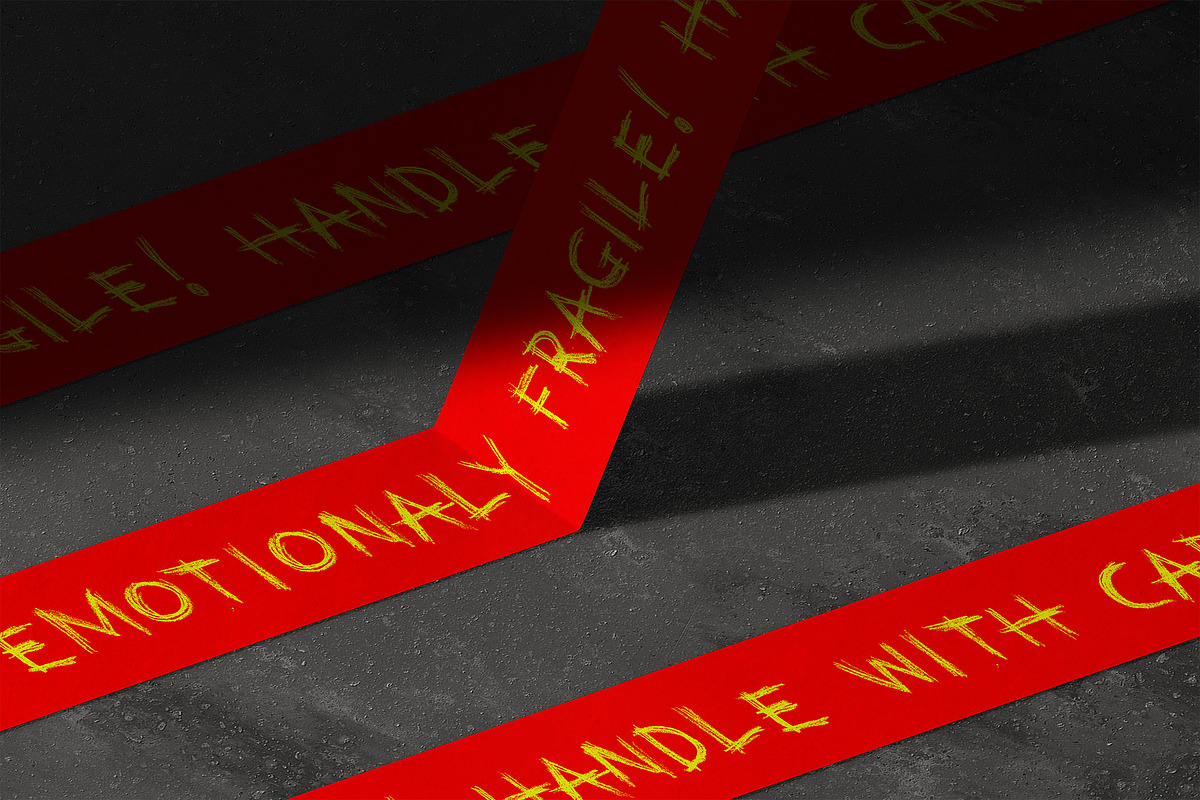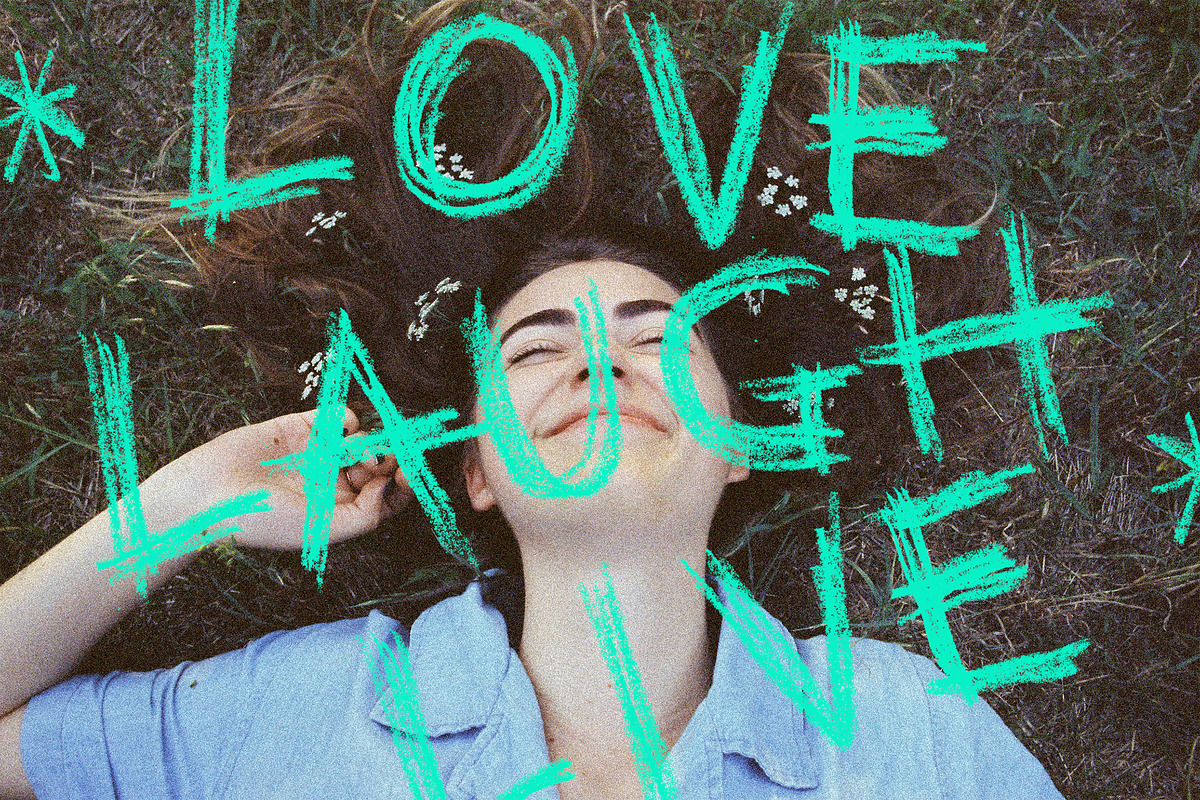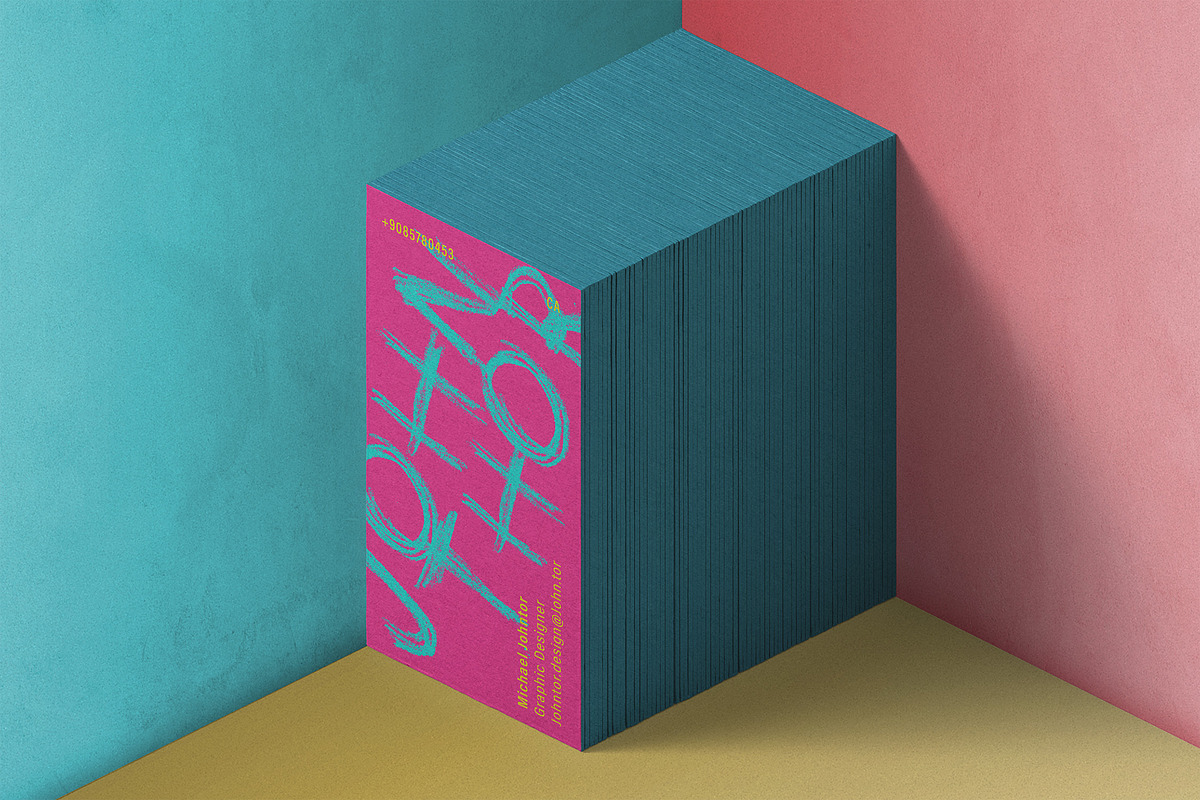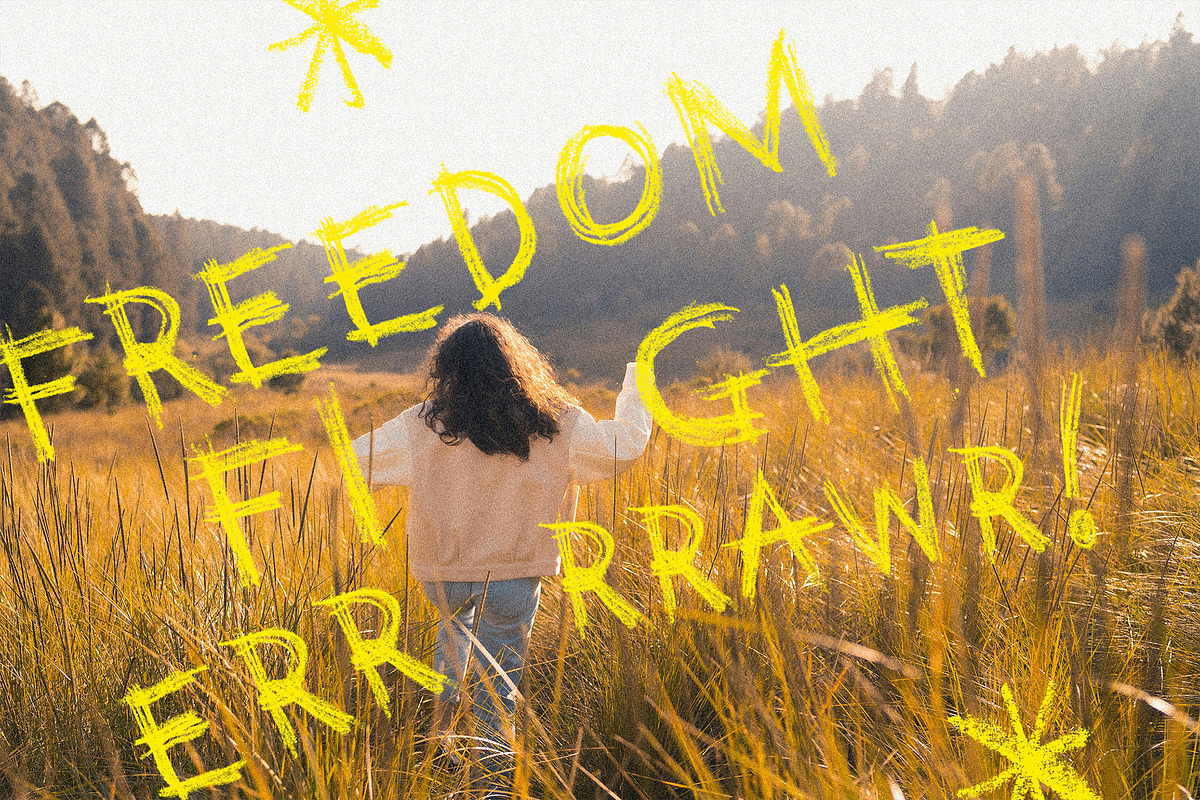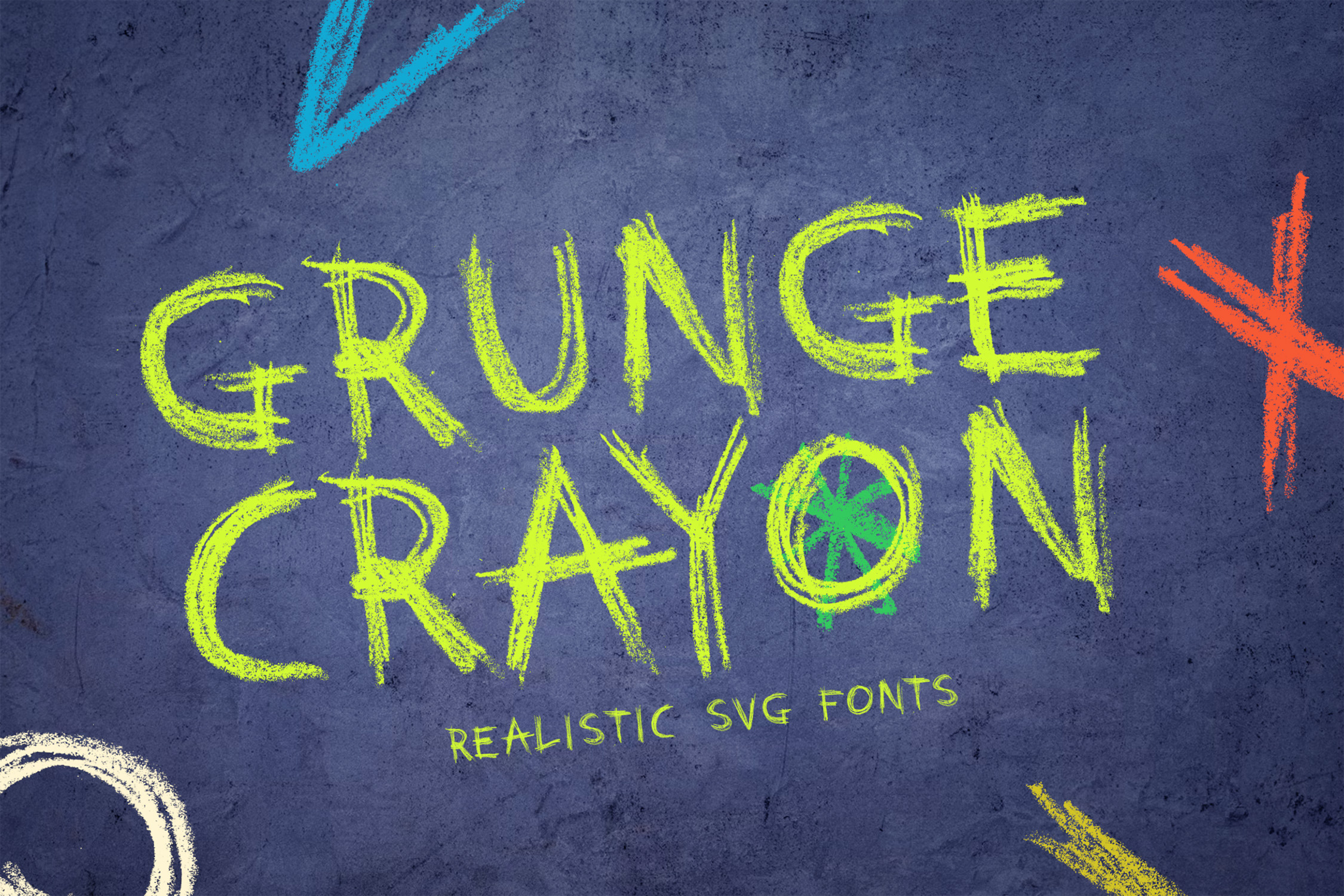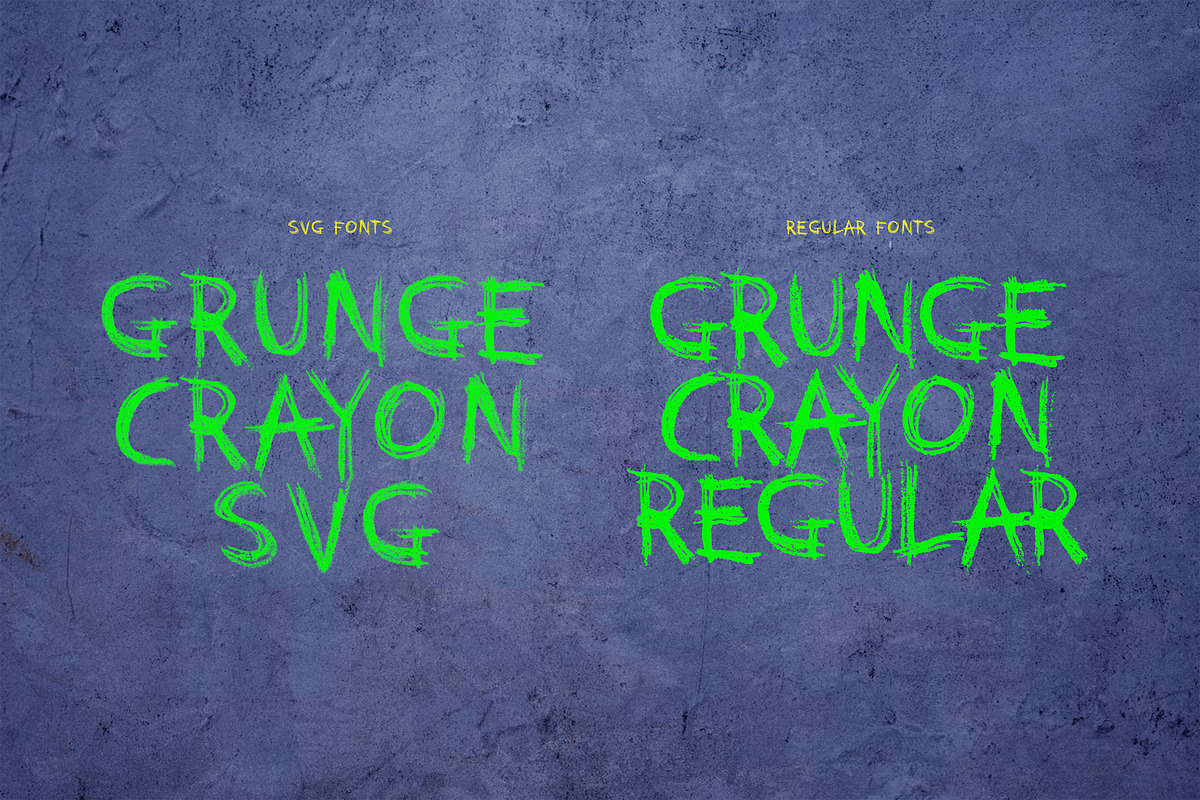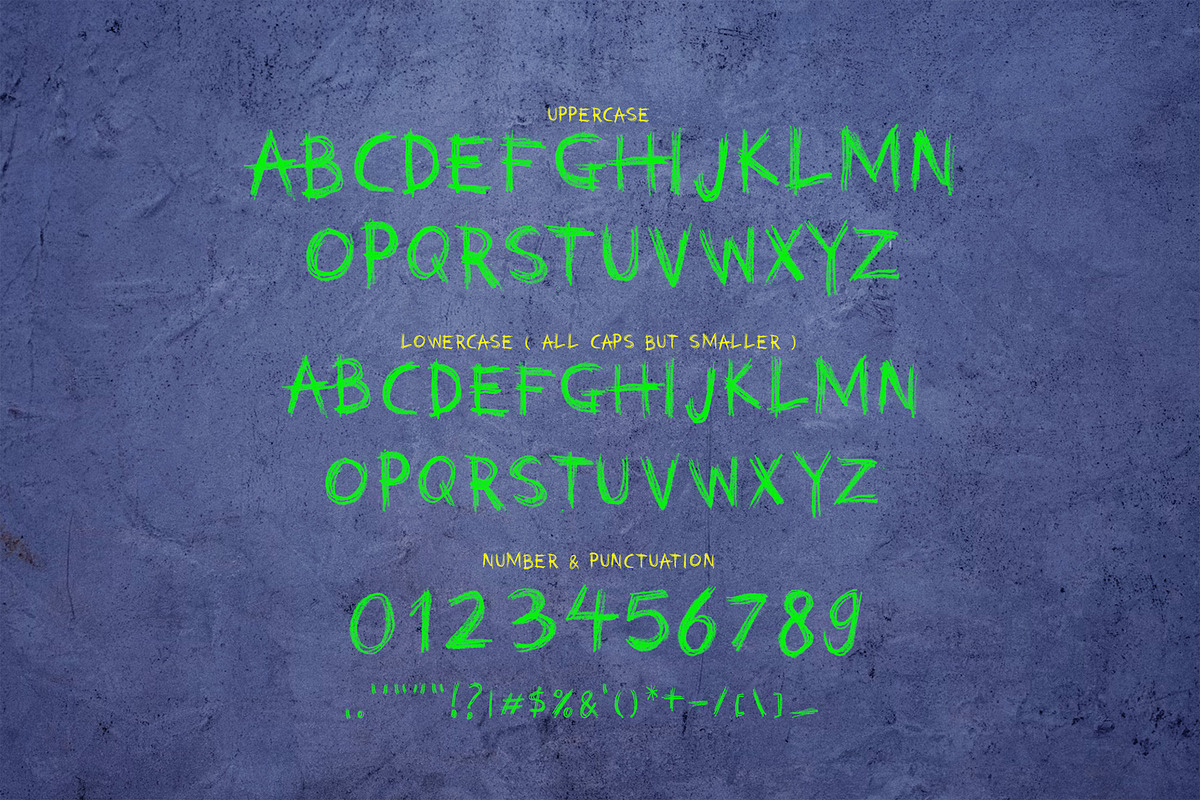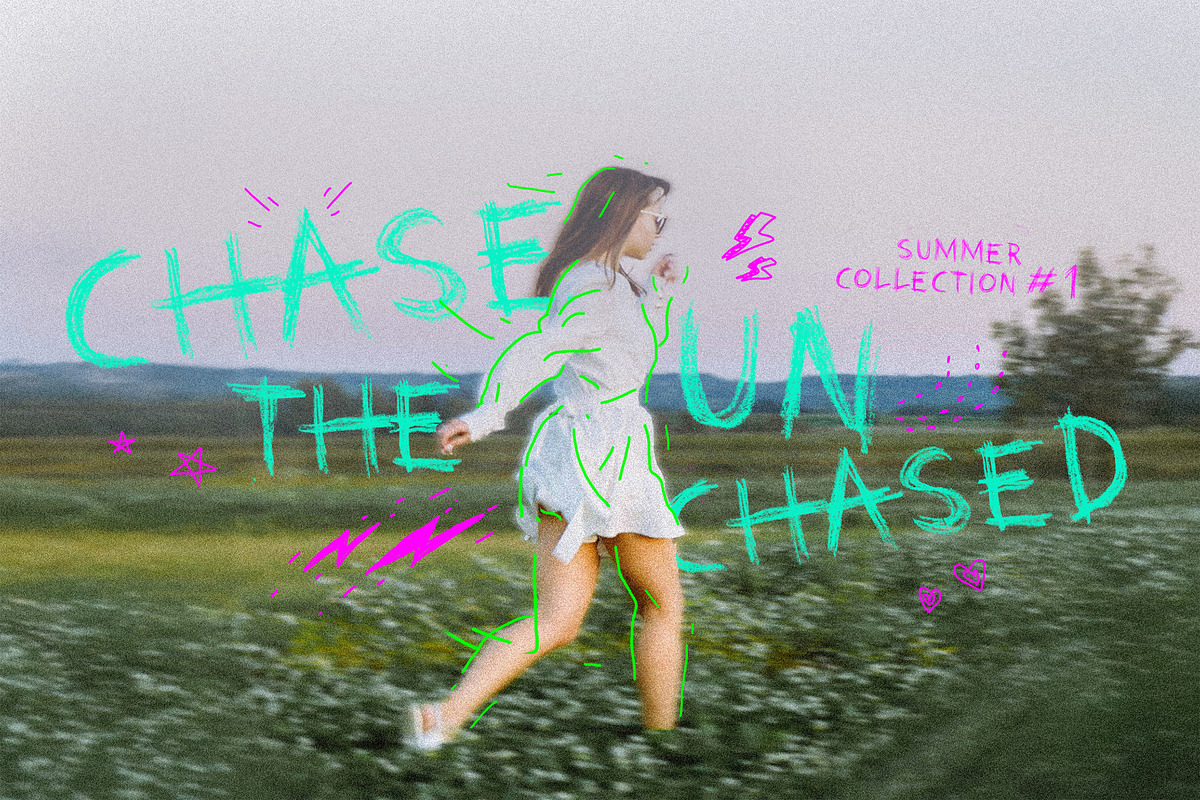
Grunge Crayon SVG Fonts
Explore your design with unique style of realistic crayon texture to create fun and grunge style. This font comes with SVG and regular otf version.